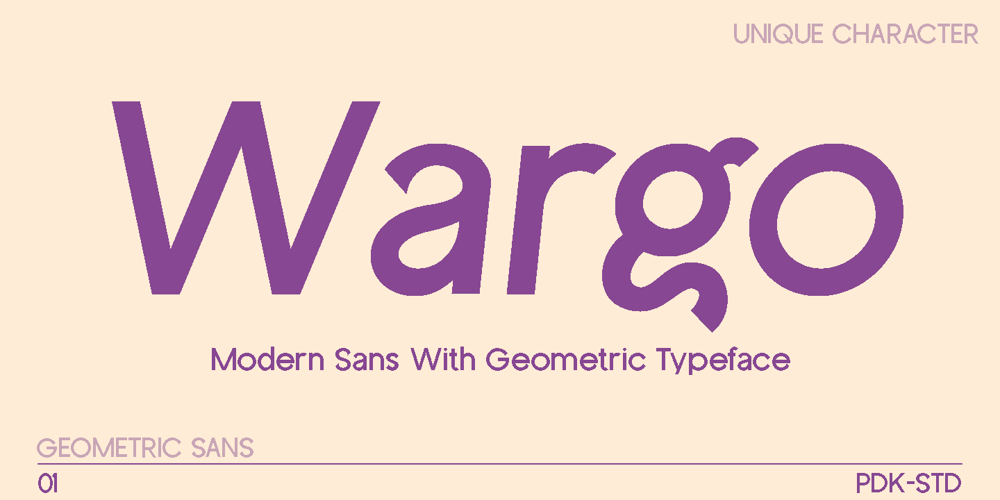
Wargo Font Family was designed by Sagara Nararya and published by Pandeka Studio. Wargo contains 2 styles and family package options. Introducing Wargo!, An geometric font with soft, charming rounded edges and curves.Wargo is a geometric sans serif font family with unique characters for a touch of distinction. Simple yet sophisticated, this typeface design gives a clean and modern appearance while carrying some almost retro tones.Features Wargo Main Files Oblique version Instructions (Access special characters in all apps, even in Cricut Design) Accessible in Adobe Illustrator, Adobe Photoshop, Microsoft Word even Canva! PUA Encoded Characters. Fully accessible without additional design software Feel free to follow, like and share. Thanks so much for checking out my shop!Pandeka Studio